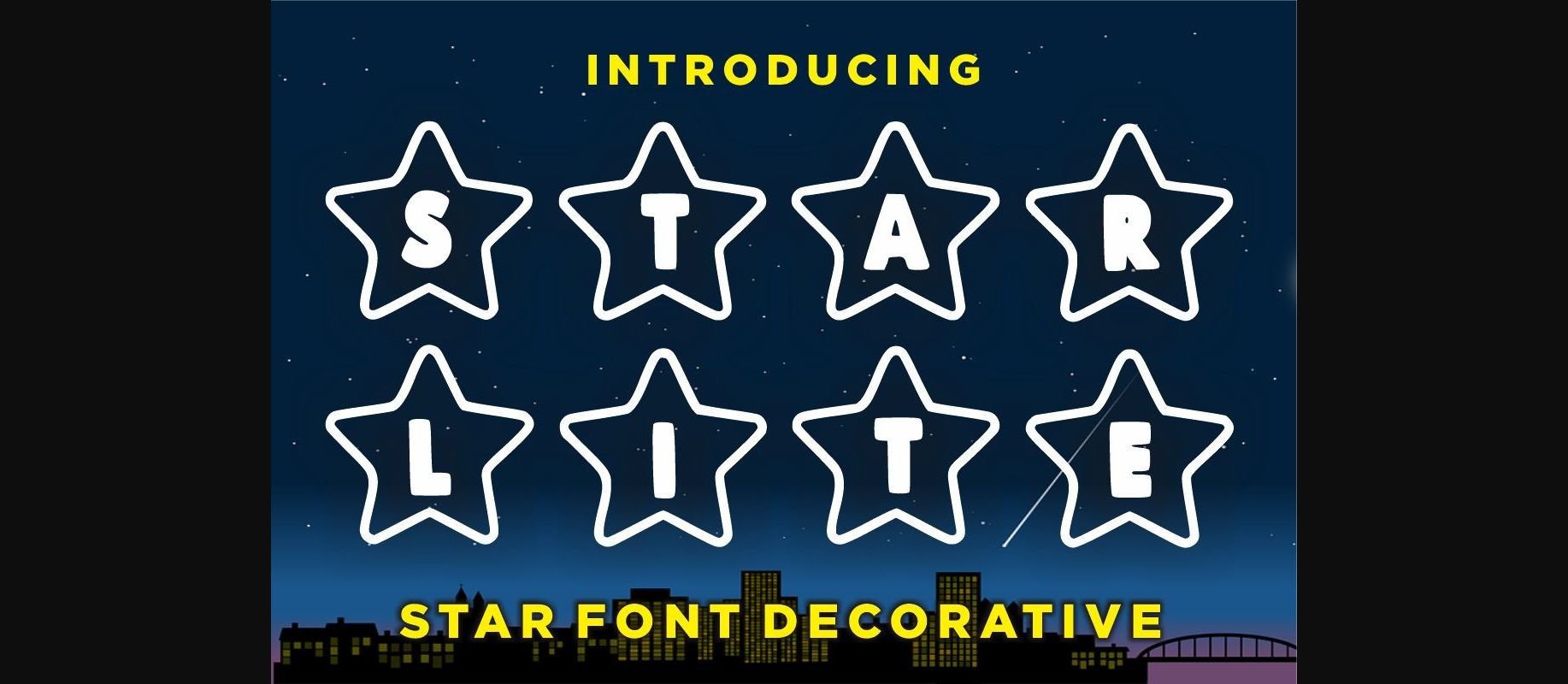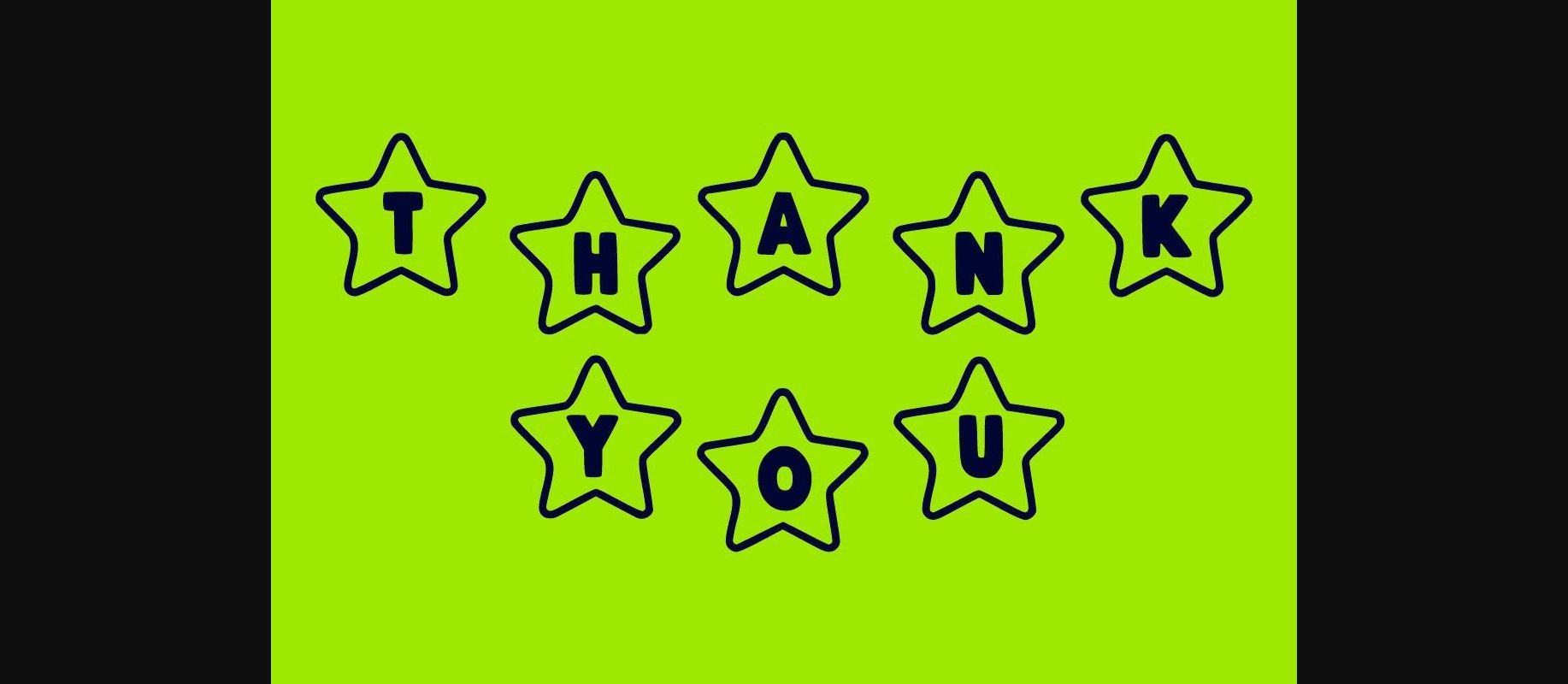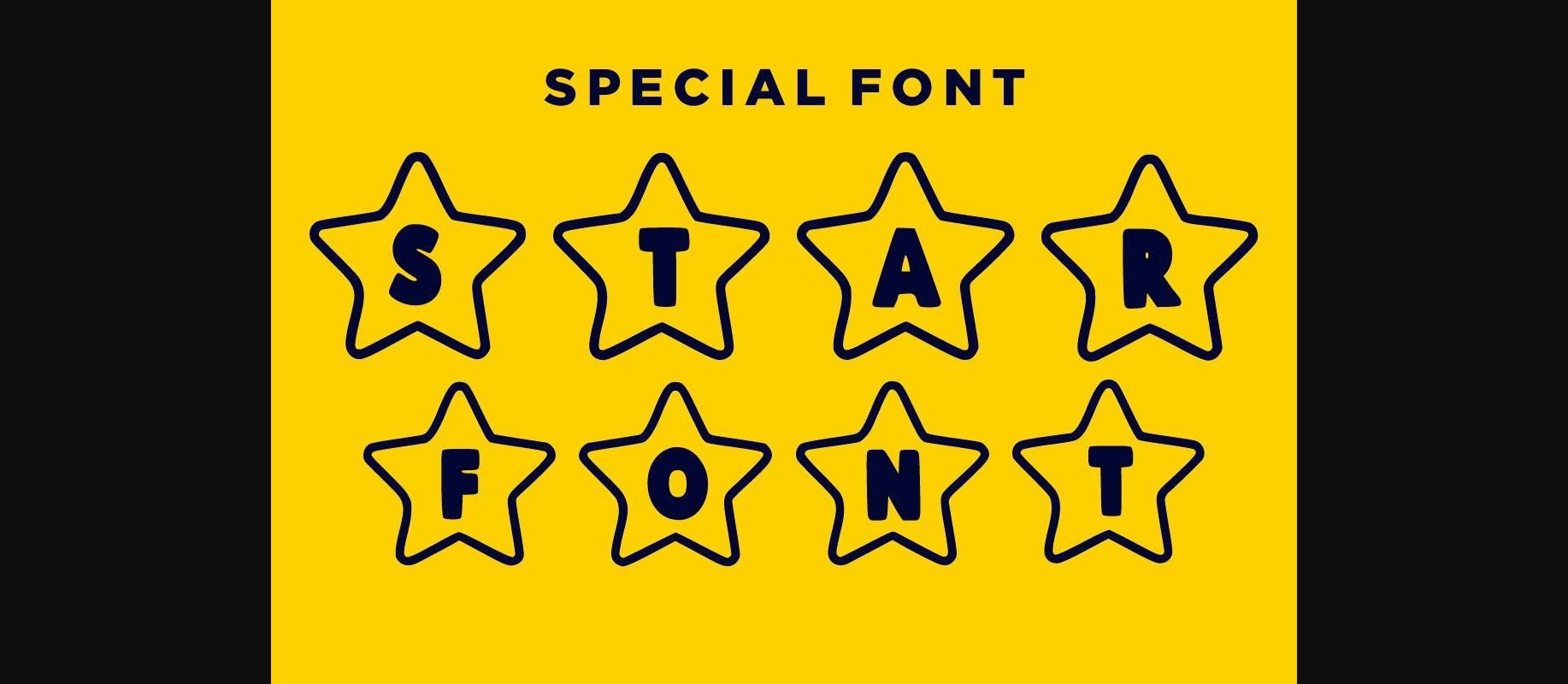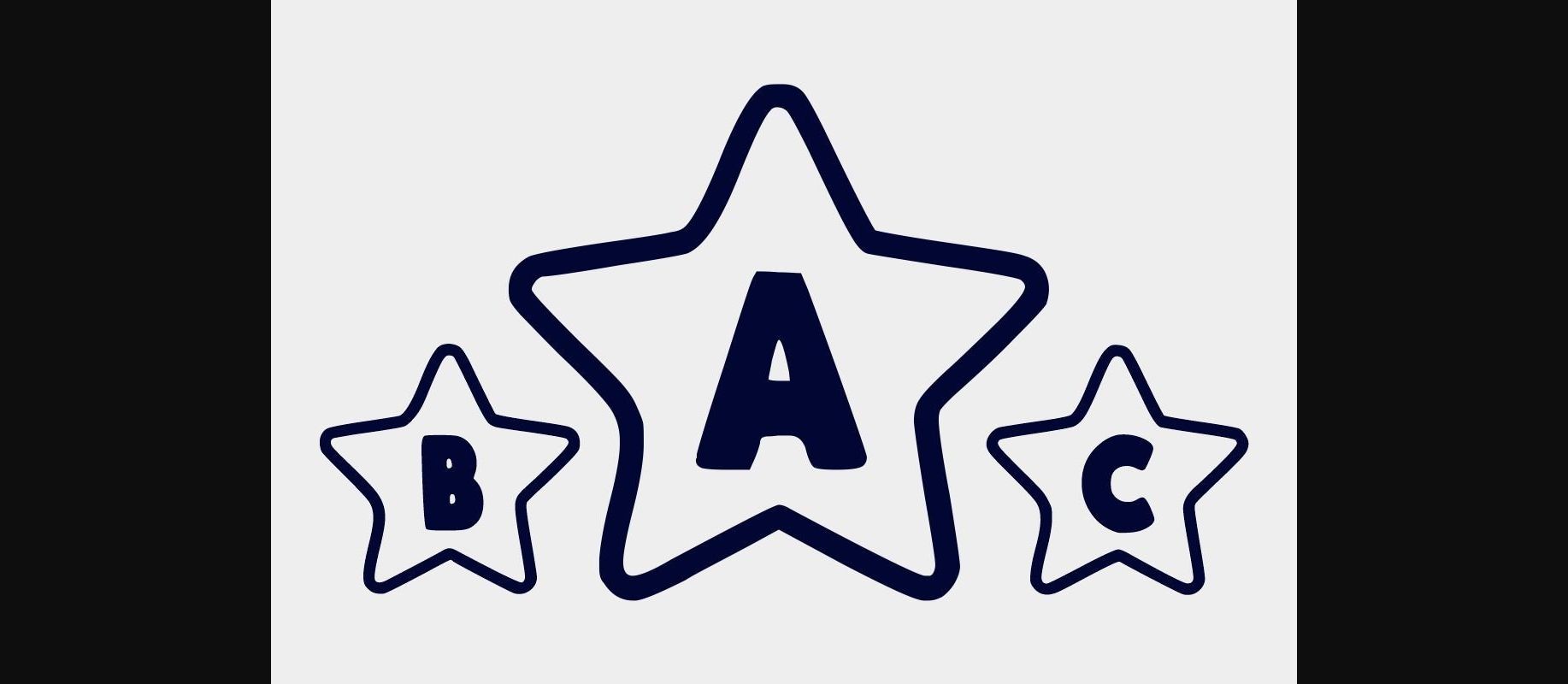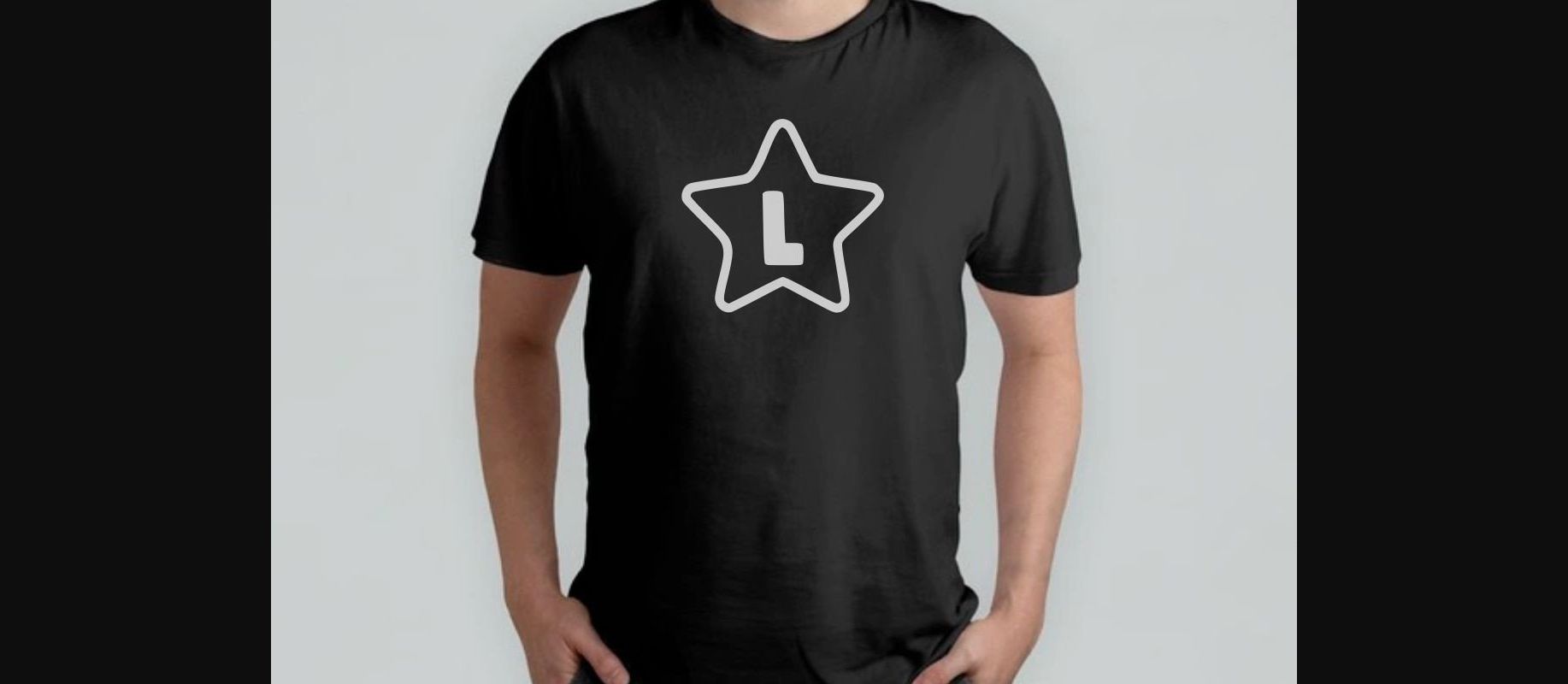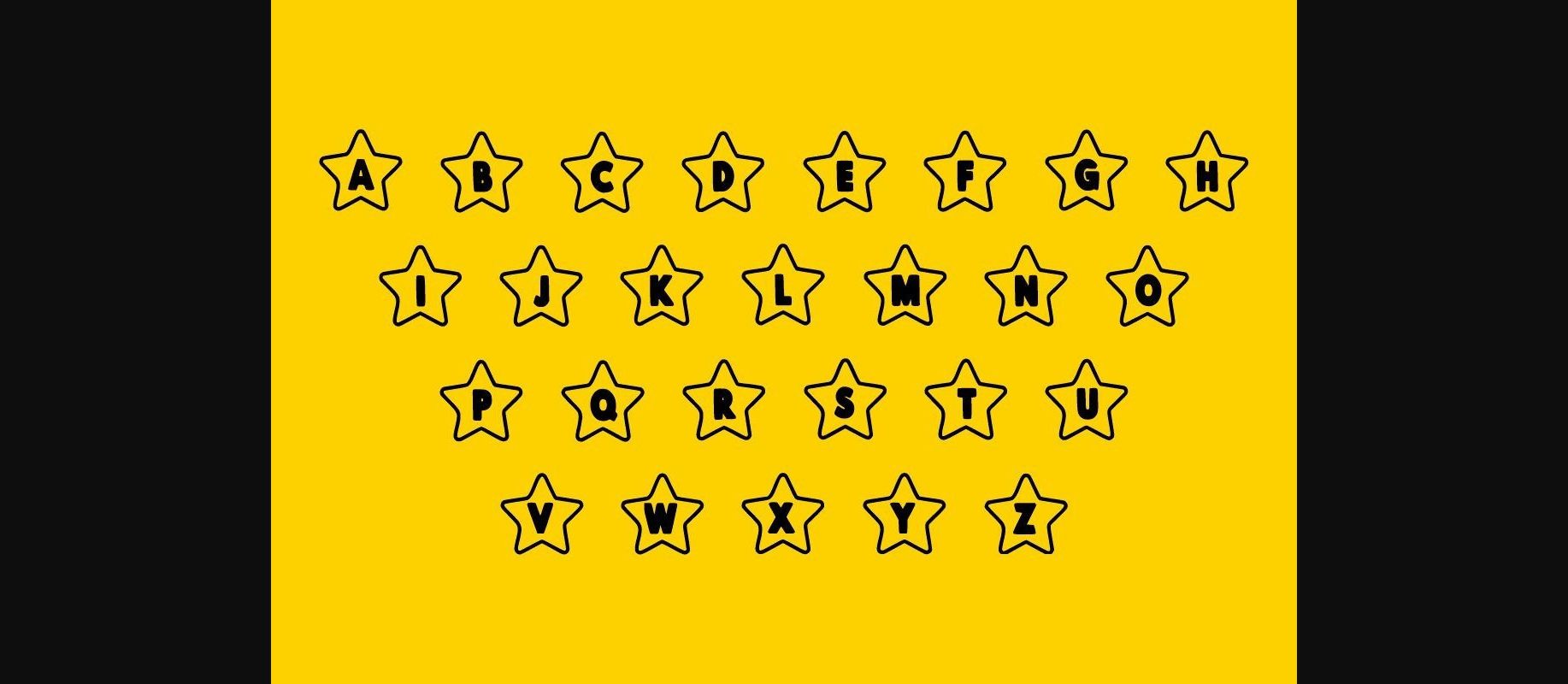
Star Lite Font
About Star Lite Font
Star Lite is a star shape decorative font. This enchanting decorative font with star frames will turn any creative idea into a true standout. Get creative with its childlike playfulness, and use it to brighten up any kids and school project!